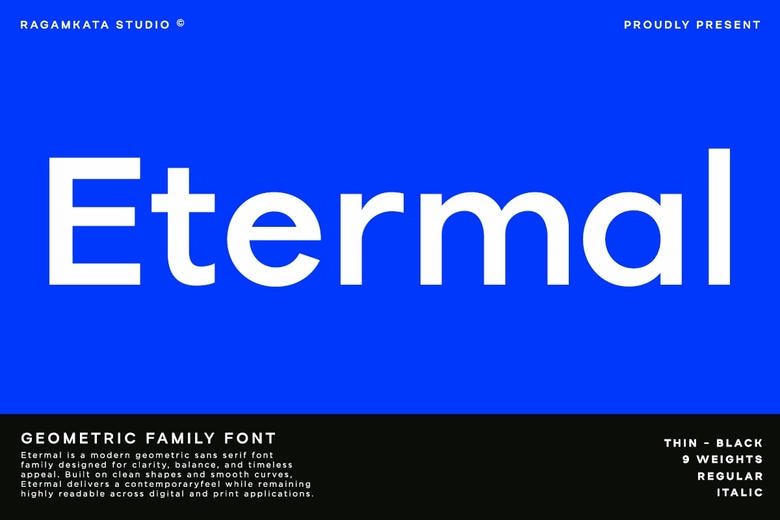
Etermal Font
Etermal is a contemporary geometric singular sans serif family font that is used to provide clarity, balance, and classic visual power. Constructed with a high precision of geometry and flowing proportional curves, Etermal provides a crystal-clean, modern look with confidence, professionalism and great versatility. Its heavy body guarantees great readability with a smooth and contemporary flair.
Designed as a full font family, with varying weights, Etermal offers excellent branding, editorial, web interface, corporate identity, advertising and UI/UX project flexibility. This font can be used in minimal design as well as in bold typography in logo systems, brand guidelines, presentations, mobile apps, websites, and dashboards as well as in posters, brochures, packaging, and even social media content.
Etermal is the best fit to technology brands, startups, corporate identity, digital platforms, product branding, fintech, SaaS, and creative studios, giving any design a professional touch and a modern-day versatility. Its geometric consistency and comprehensive weight control gives designers the ability to construct consistent, scalable and aesthetically stimulating brand systems both online and in print.
Etermal Sans Serif Font